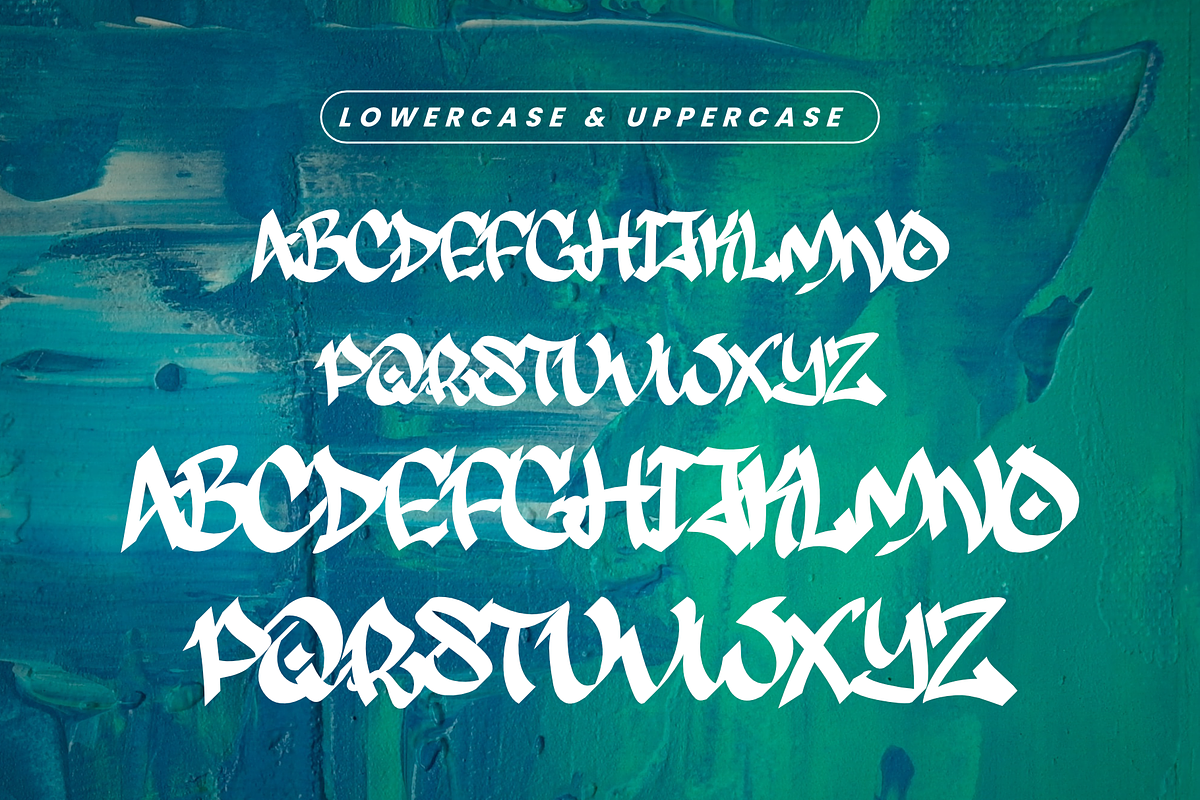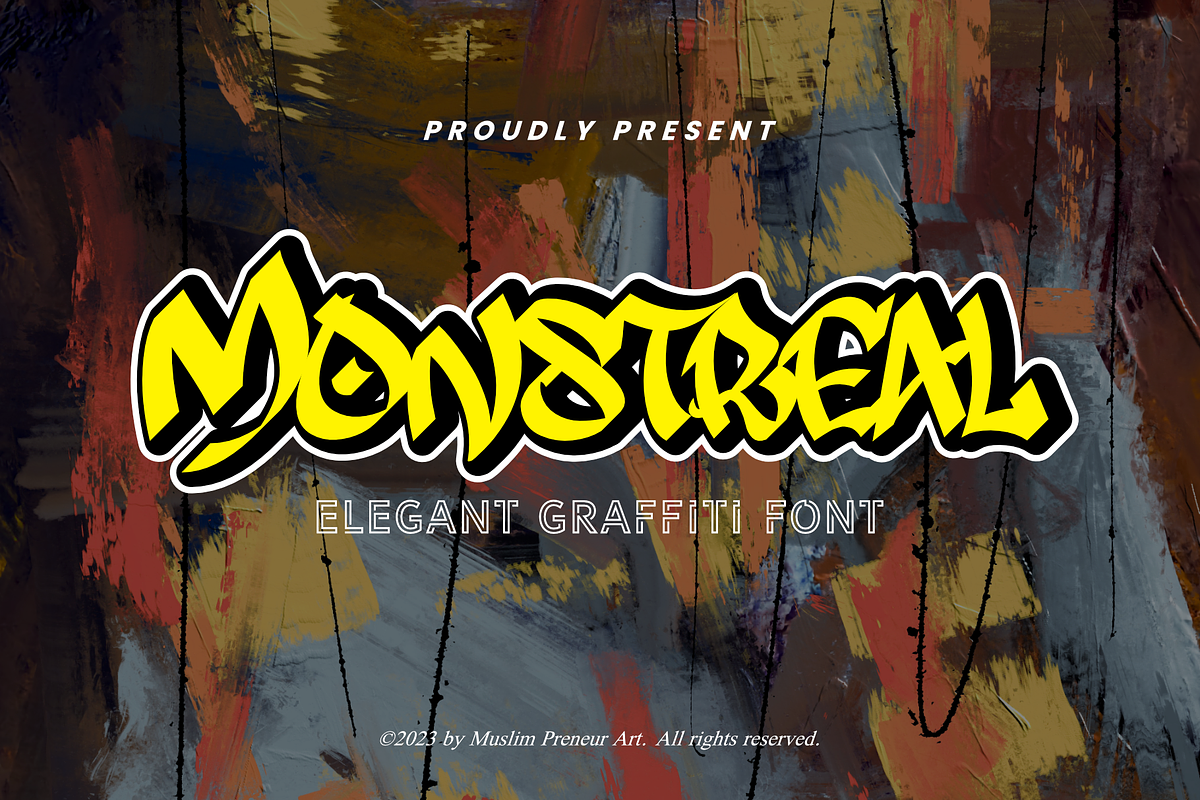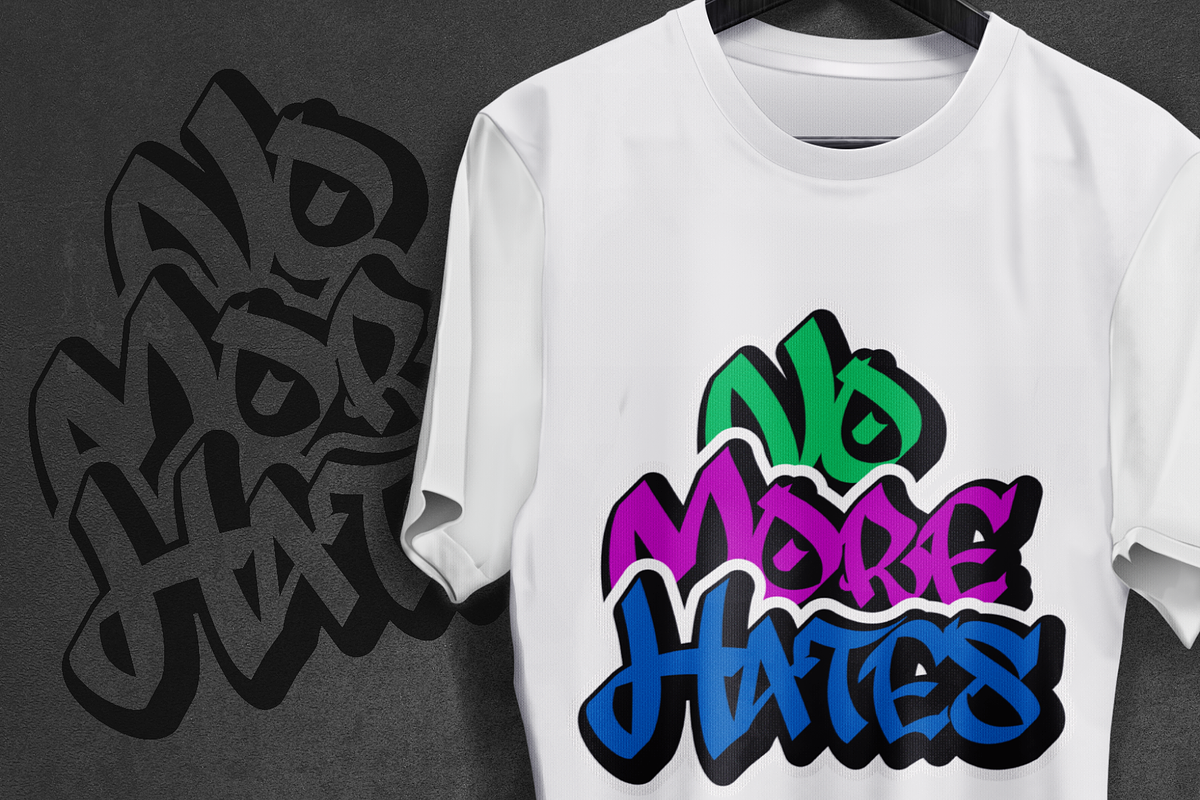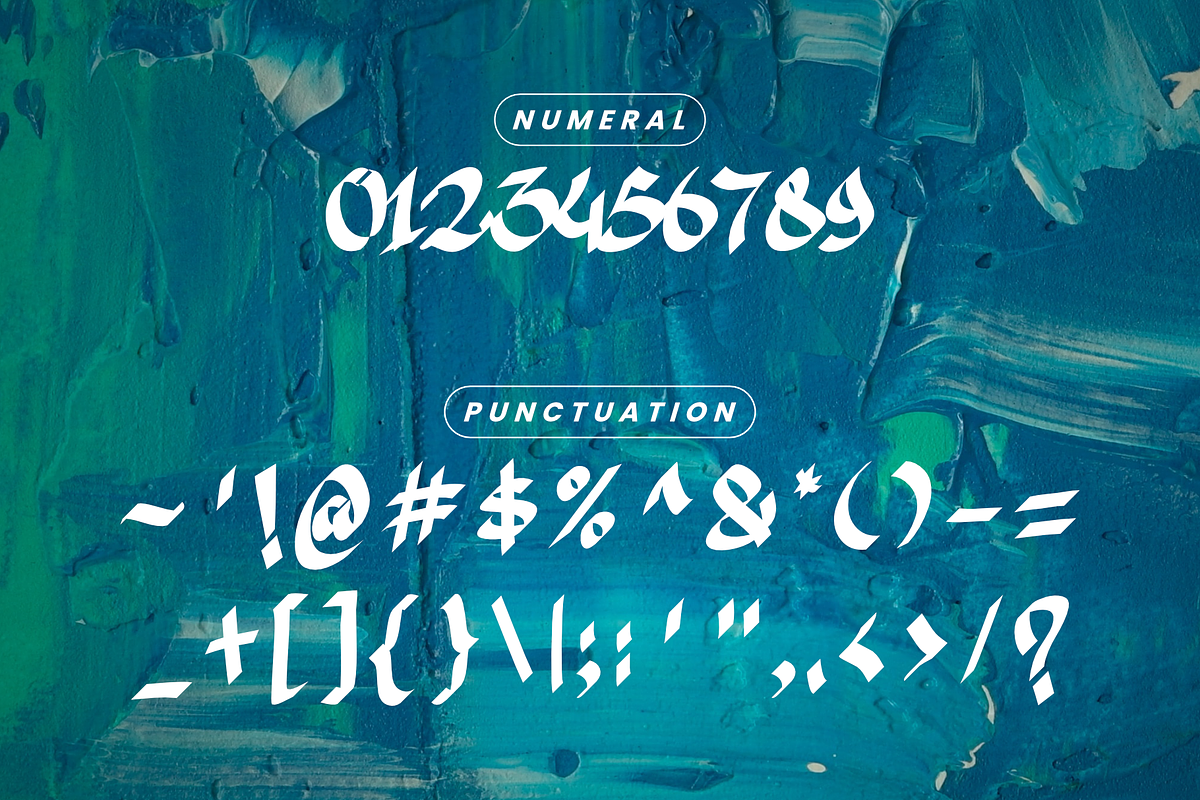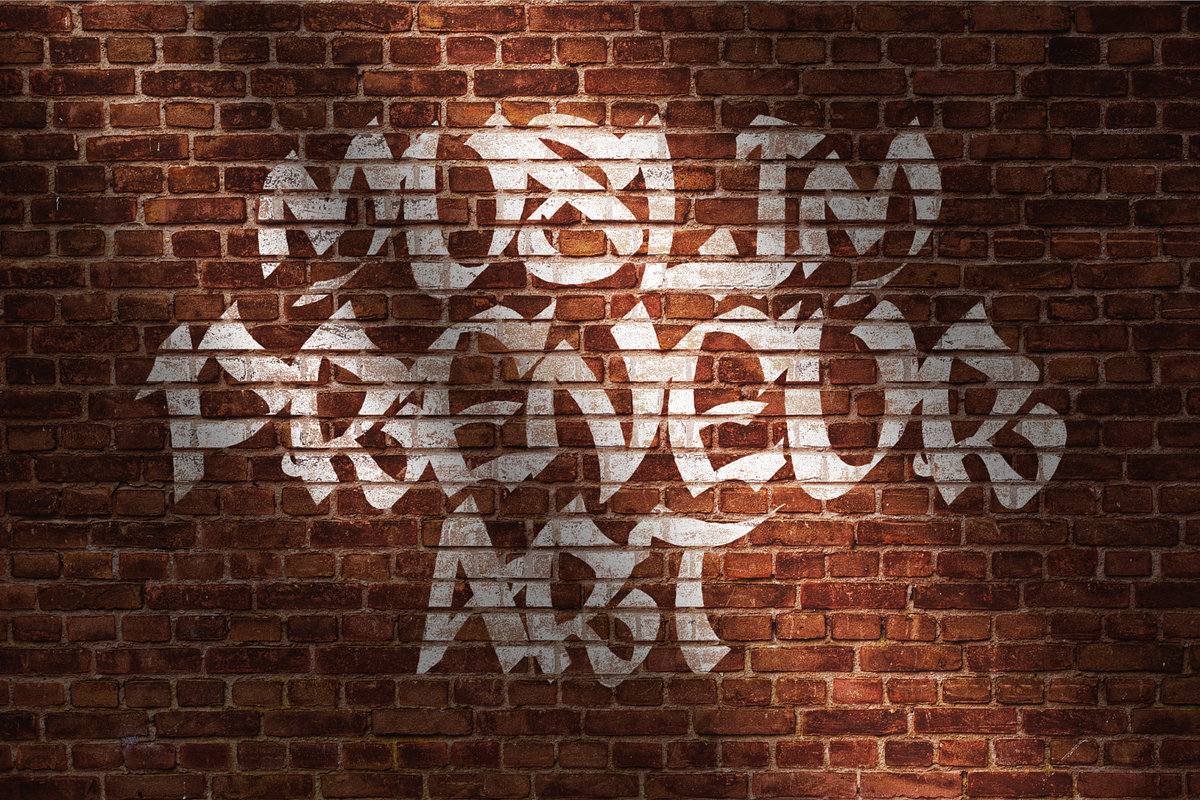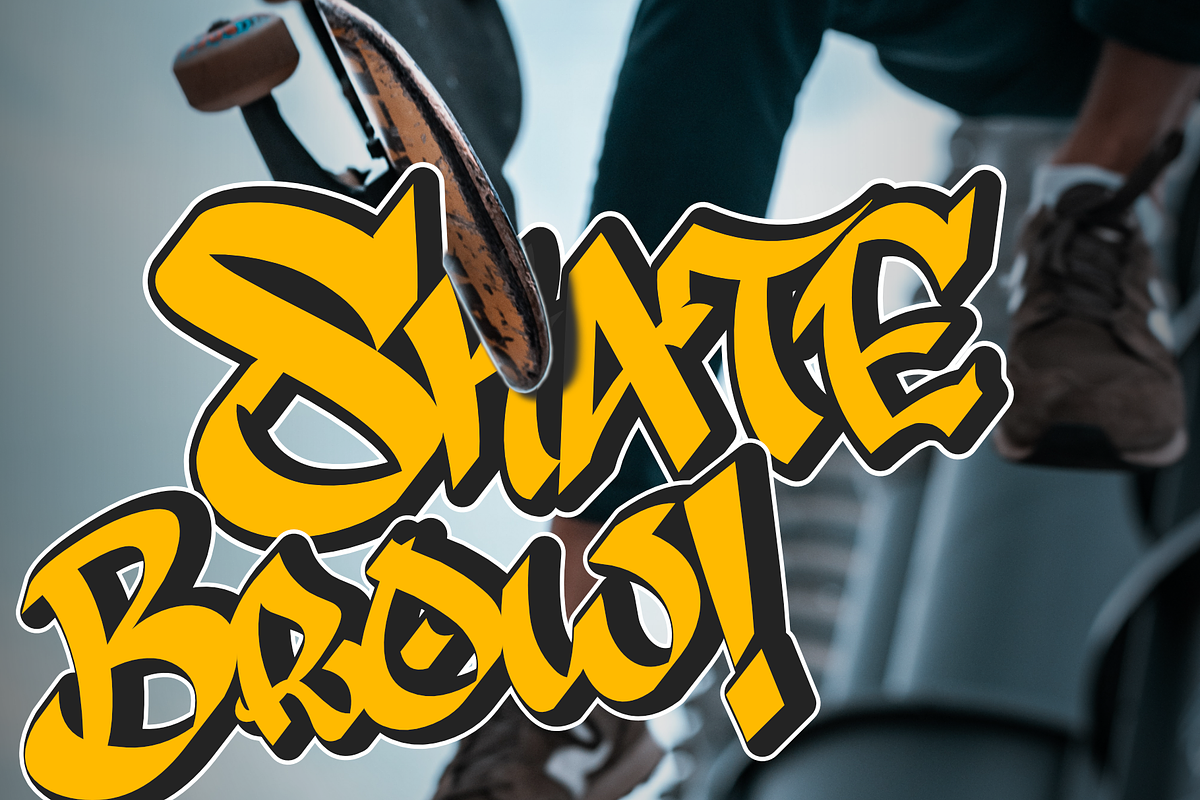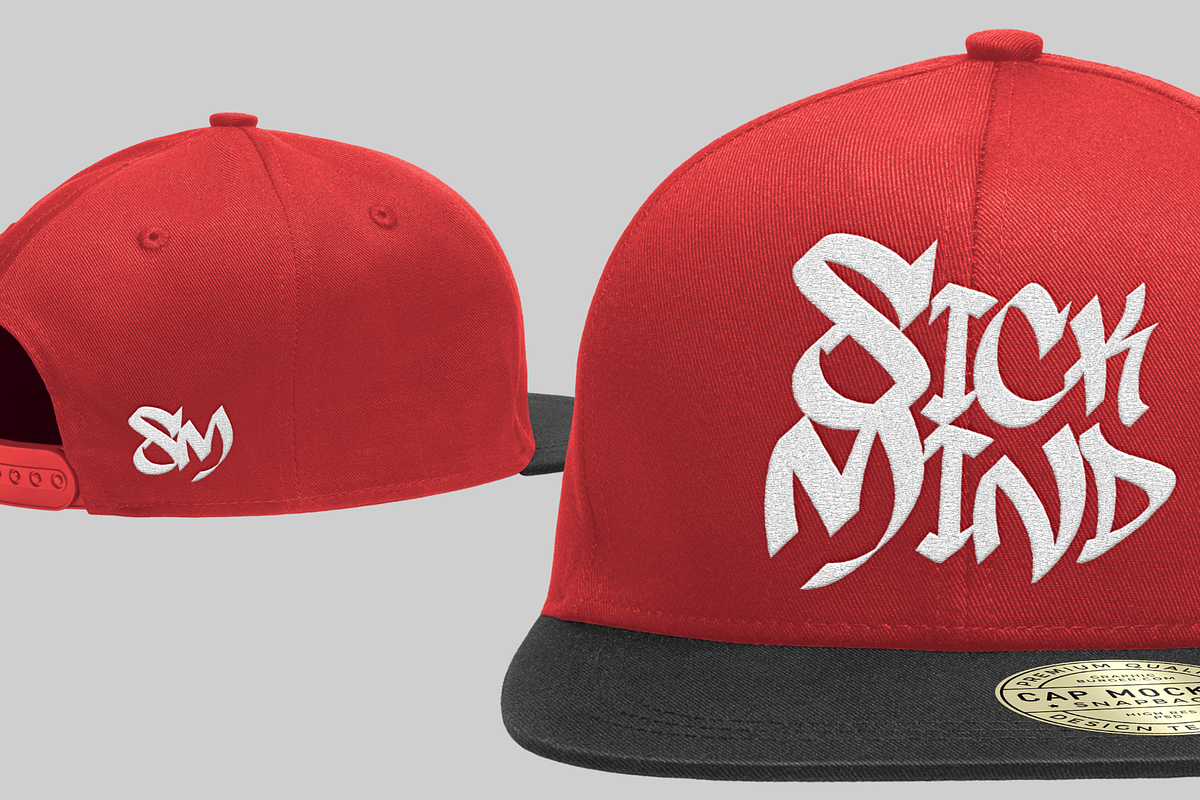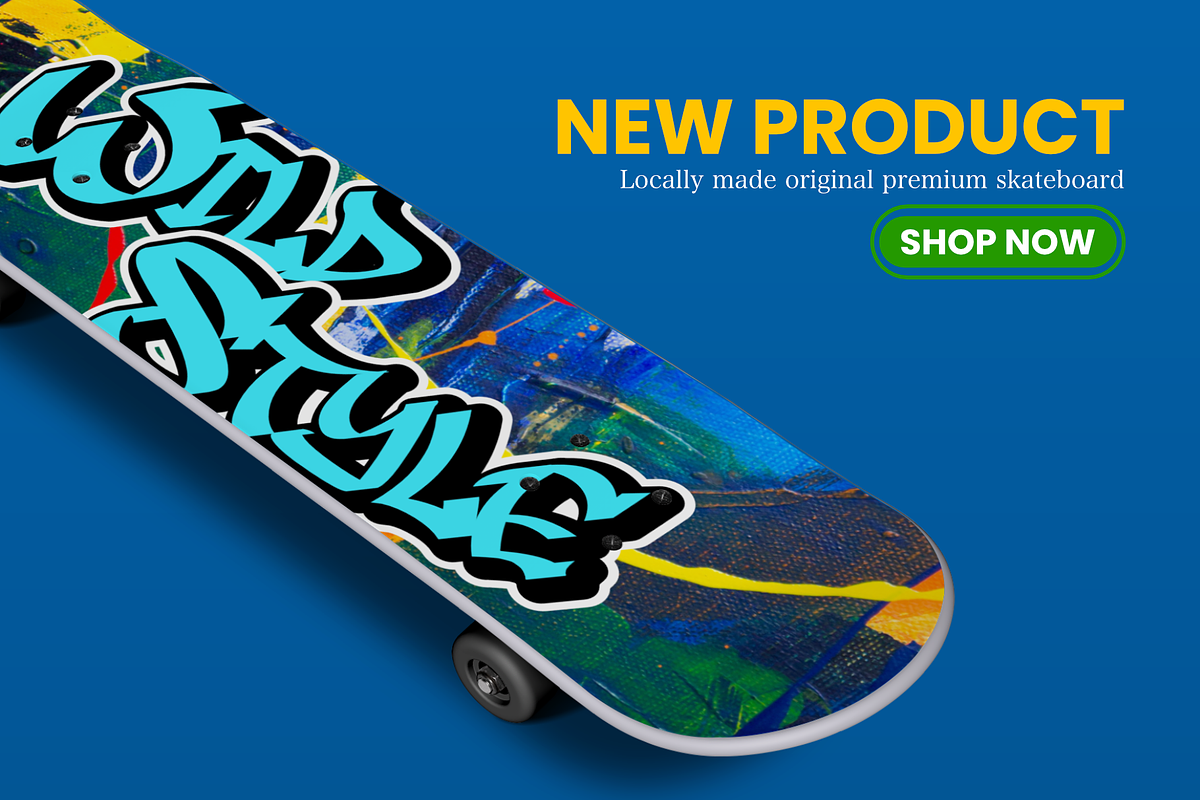
Monstreal – Modern Graffiti Display Font
Bring authentic street culture into your creative projects with Monstreal, a bold graffiti display font inspired by urban art, streetwear fashion, skate culture, and hip-hop aesthetics.
Designed with expressive graffiti letterforms and powerful strokes, Monstreal captures the energy of city walls while maintaining excellent readability for logos, branding, merchandise, and promotional designs. Its handcrafted style delivers a strong visual impact, making every headline stand out with confidence.
Whether you're creating apparel graphics, skateboard artwork, album covers, gaming designs, posters, or social media content, Monstreal gives your work an unmistakable urban identity.
Streetwear Branding
Clothing Brands
Graffiti Artwork
Skateboard Graphics
Hip Hop Projects
Urban Logos
Album Covers
Music Posters
Gaming Graphics
YouTube Thumbnails
Twitch Stream Assets
Sticker Designs
T-Shirt Designs
Cap & Hat Designs
Packaging
Event Posters
Sports Branding
Display Typography
Uppercase Letters
Lowercase Letters
Symbols
Bold Graffiti Style
Urban Display Font
Handcrafted Letterforms
High Readability
Perfect for Headlines & Logos
Monstreal is crafted for designers who want to create bold, energetic, and unforgettable visuals. Inspired by authentic graffiti culture, this font is perfect for branding projects, apparel, posters, music promotions, urban merchandise, and any design that demands a strong street-style personality.